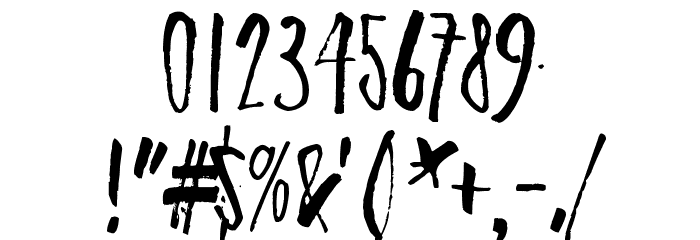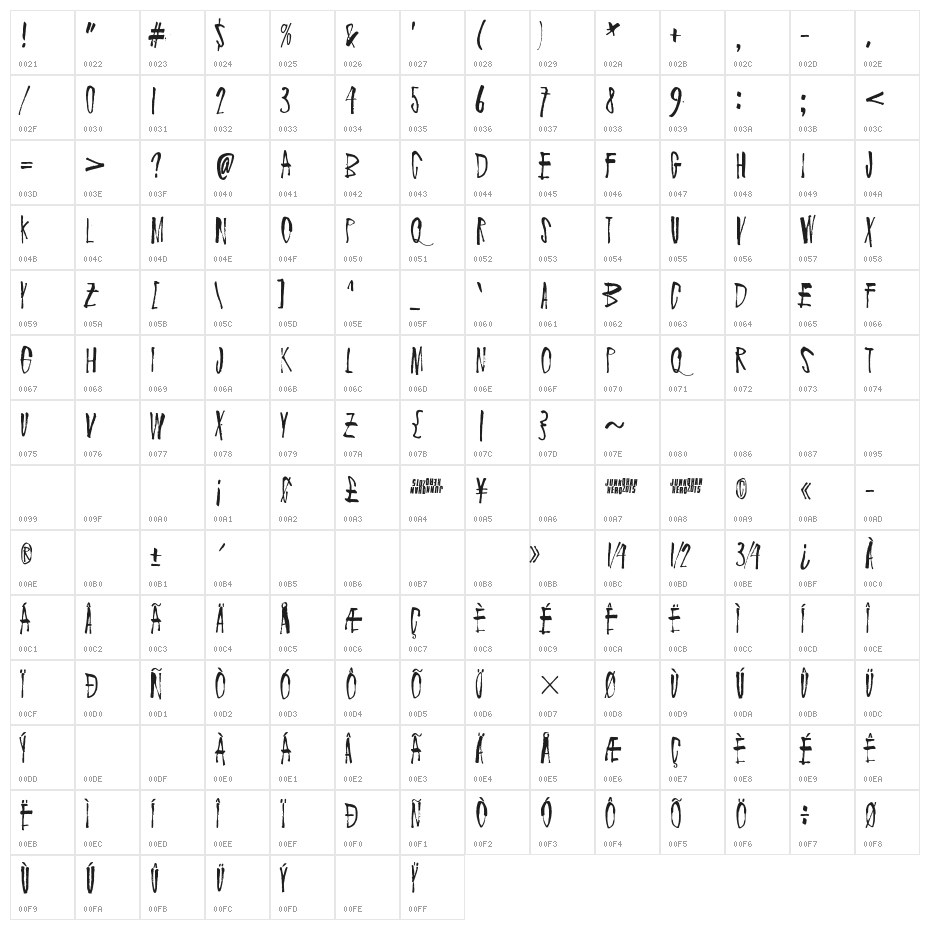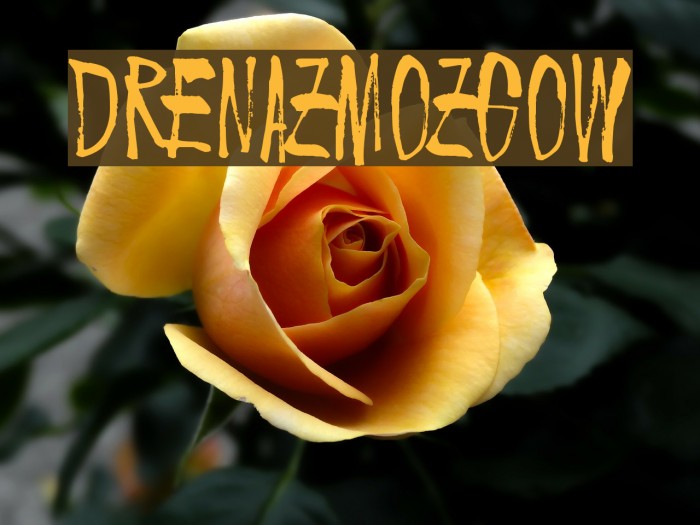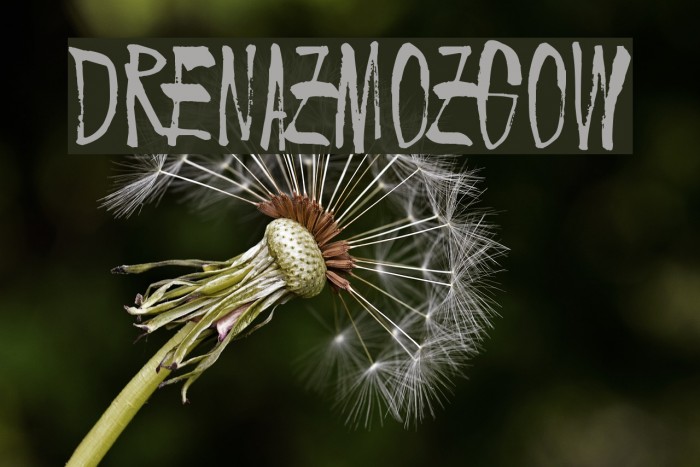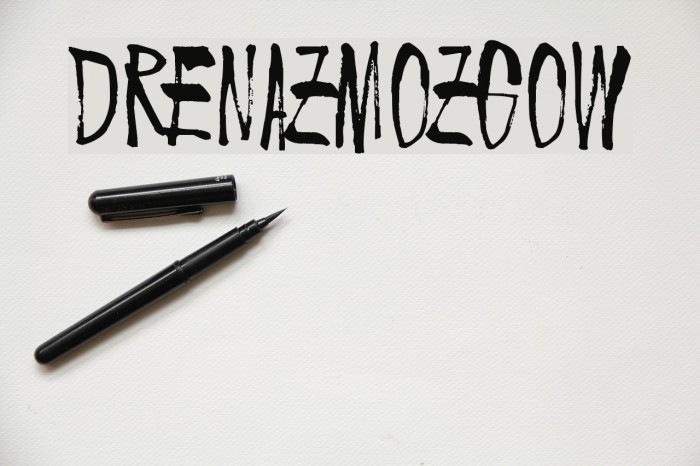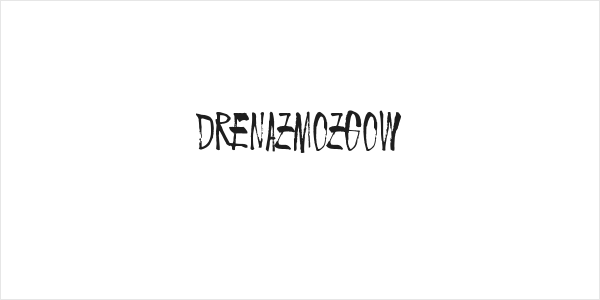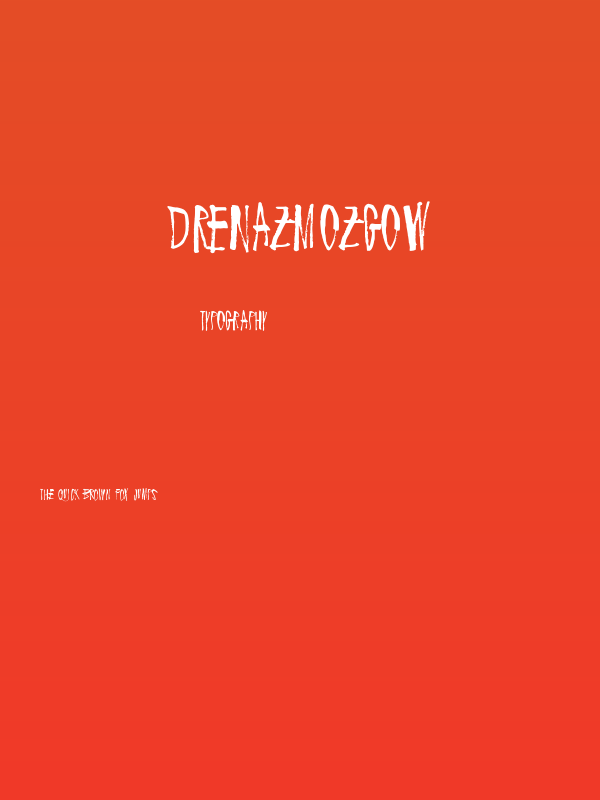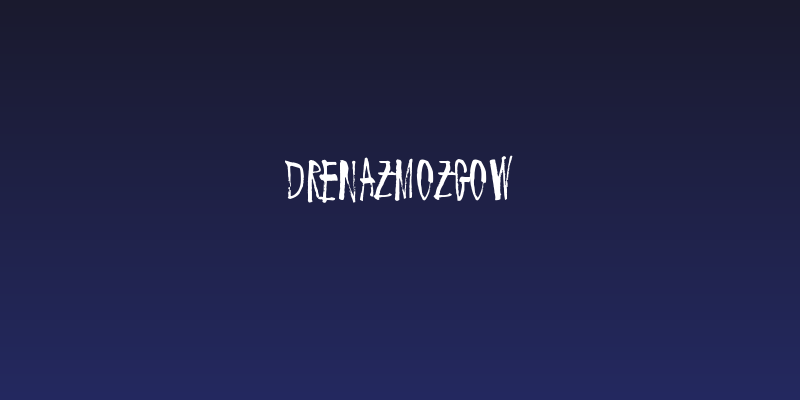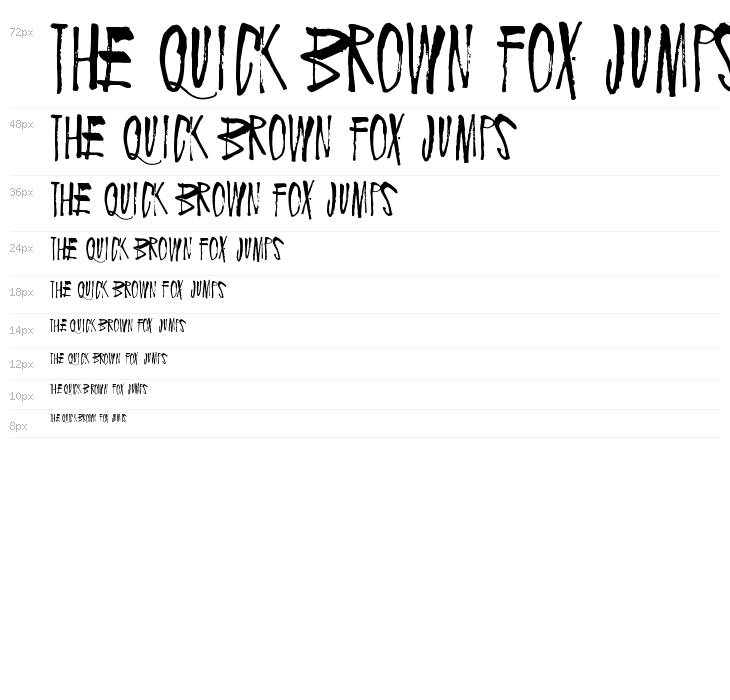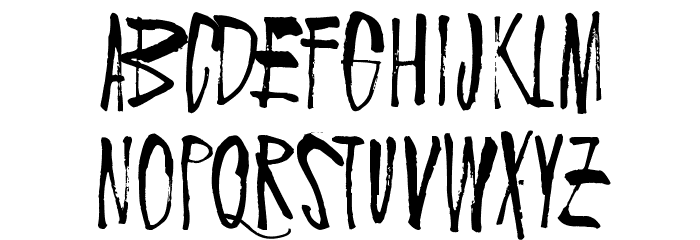
Drenazmozgow Font
Drenazmozgow Description
This font exhibits a raw, expressive style with a hand-drawn appearance. The characters are unevenly weighted, giving a dynamic and energetic feel. The uppercase and lowercase letters share a consistent, jagged aesthetic, with strokes that vary in thickness, creating a sense of movement and spontaneity. The numbers and special characters maintain this irregular, artistic look, making the font suitable for creative and informal applications. The overall design is bold and impactful, with a slightly chaotic yet intentional structure that captures attention.